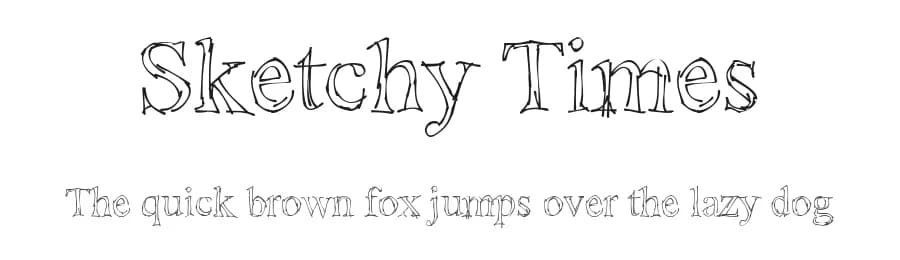
About Sketchy Times Font
Sketchy Times is a script & handwritten font designed by !Exclamachine Type Foundry. It includes 222 glyphs, a regular weight, TTF (TrueType) format, and 216 languages. Sketchy Times is free to download; check the license details on this page before commercial use. Script & handwritten fonts like Sketchy Times work best for wedding invitations, greeting cards, signatures, and elegant branding.
| Designer | Choz Cunningham |
Sketchy Times Font is a script font that shines as a display or heading face. Pair it with a clean sans-serif or serif font for body text β the contrast creates a clear hierarchy while the two styles stay balanced and easy to read.
Sketchy Times Font
Sketchy Times Font is a script handwritten typeface by !Exclamachine Type Foundry, ideal for logos, invitations, branding, and creative projects.